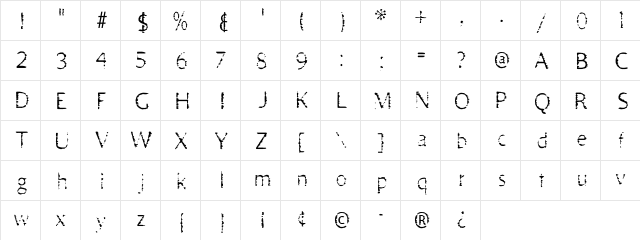
StinkyMovement Regular Font Preview
StinkyMovement Regular
Design Context for StinkyMovement Typeface
StinkyMovement takes a measured approach to typography — its balanced proportions and neutral character make it a reliable workhorse for both digital and print work.